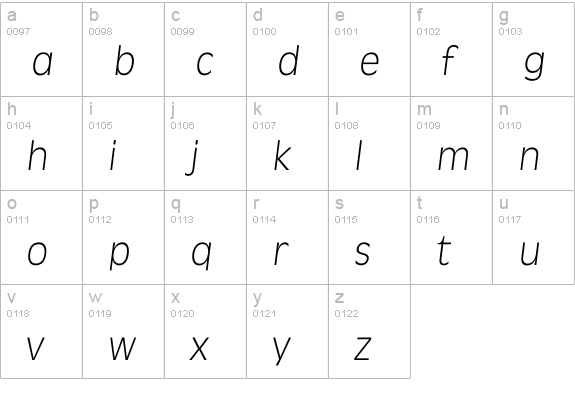
Introducing the mesmerizing Iravenna Xlight font, a stunning typeface that effortlessly combines elegance and sophistication. Crafted with precision and attention to detail, this font is the perfect choice for any design project that requires a touch of refinement. With its slim and delicate letterforms, Iravenna Xlight exudes an air of grace and beauty. Its sleek lines and gentle curves create a harmonious balance, making it a versatile font that can be used for both headings and body text. Whether you're designing a wedding invitation, a fashion magazine, or a luxury brand logo, this font will elevate your design to new heights. One of the most remarkable features of Iravenna Xlight is that it is free. Yes, you read that right. This exquisite font is freely available to download at FontsMarket.com, the leading platform for high-quality fonts. By offering this font for free, the creators of Iravenna Xlight have made it accessible to designers of all levels, ensuring that everyone can experience its enchanting beauty. Don't miss the opportunity to add Iravenna Xlight to your font collection. Its timeless elegance and versatility make it a must-have for any design enthusiast. Download it today from FontsMarket.com and unleash your creativity with this captivating typeface.